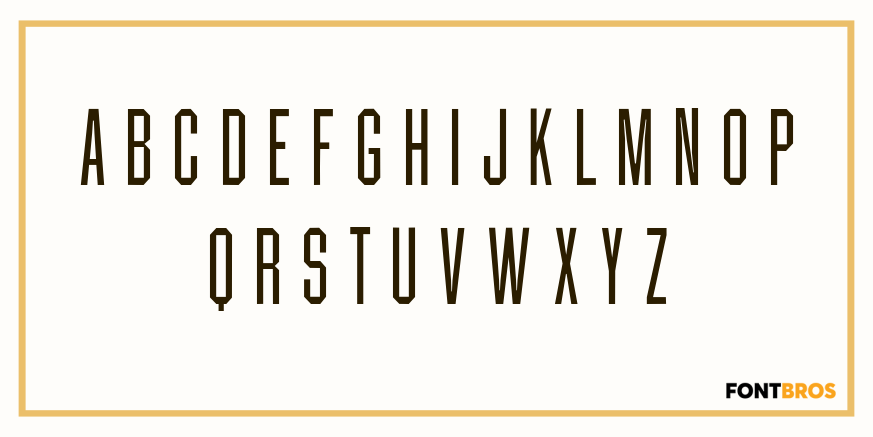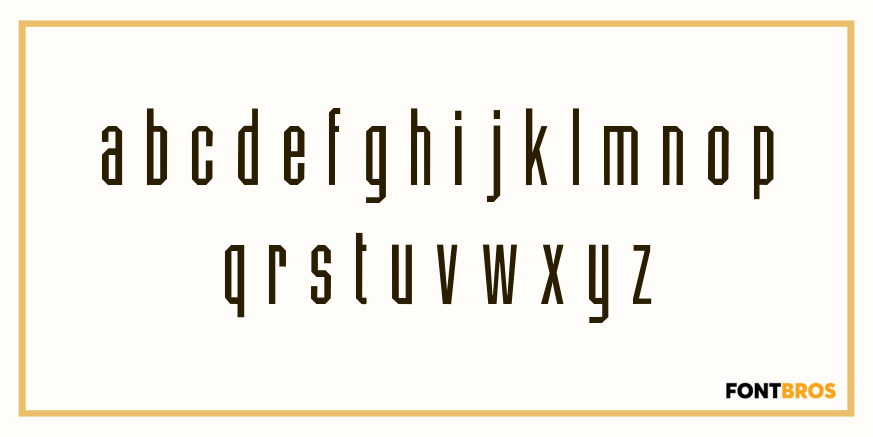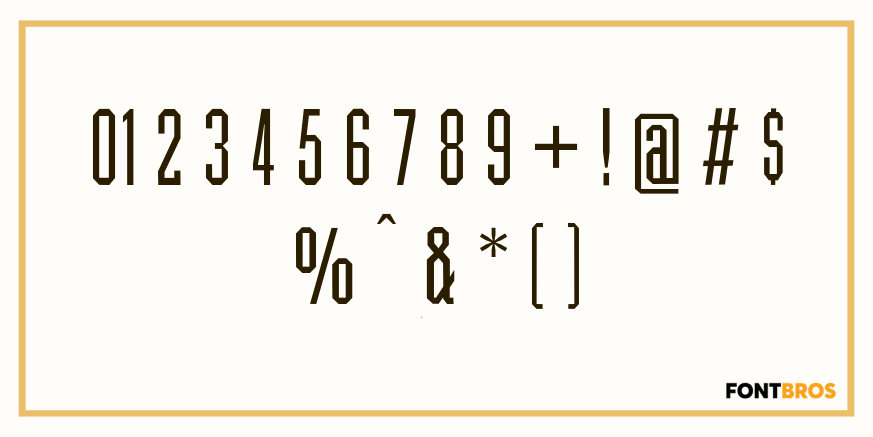
Five Star Final
Font Family by Solotype
Introduced by the American Type Founders Co. at the time of the Spanish American War and advertised as suitable for ?War Scare Headlines?!
Used by many papers for years after because the narrow type was suitable for narrow single column heads.